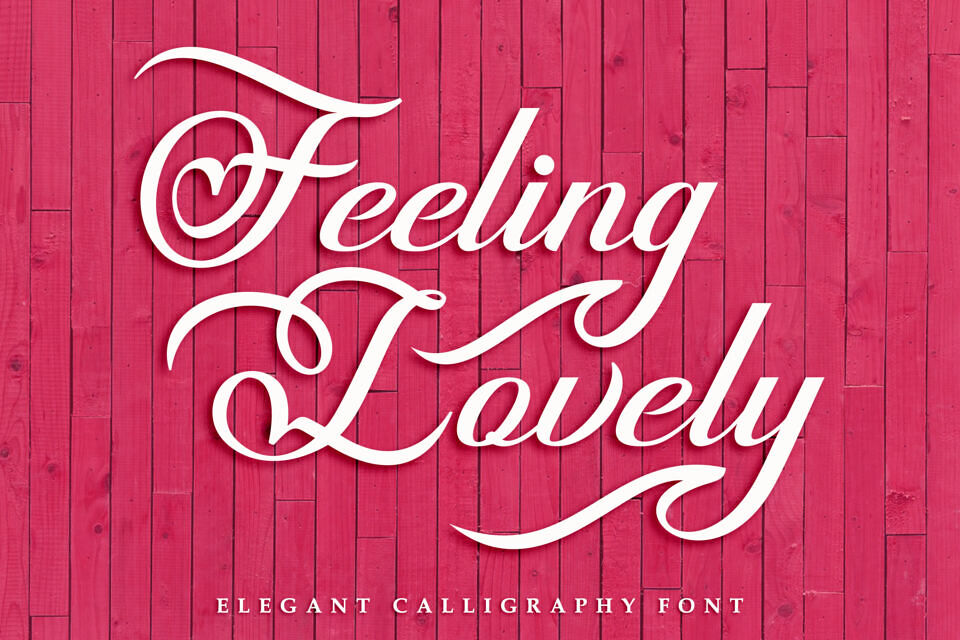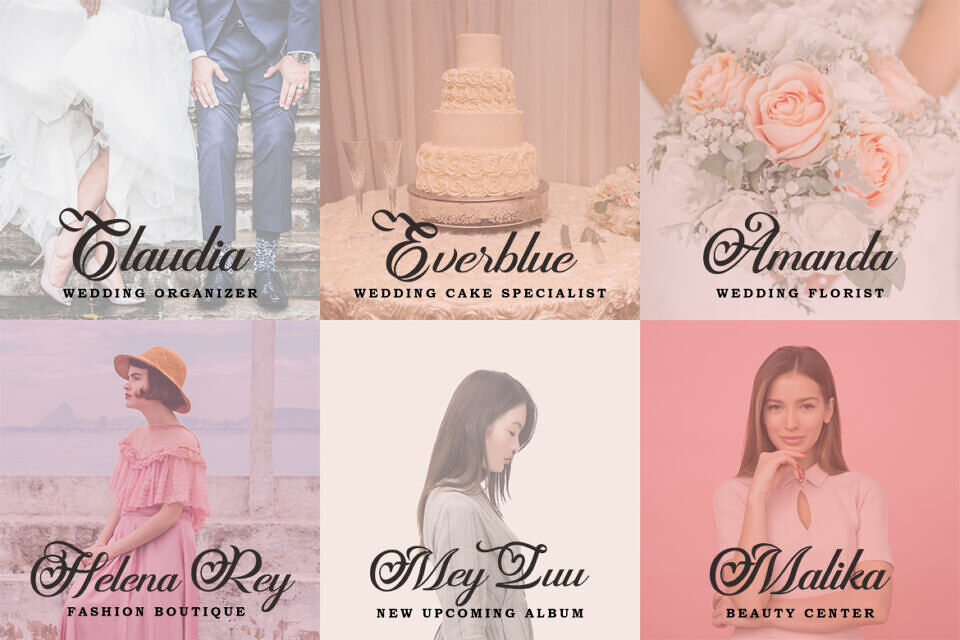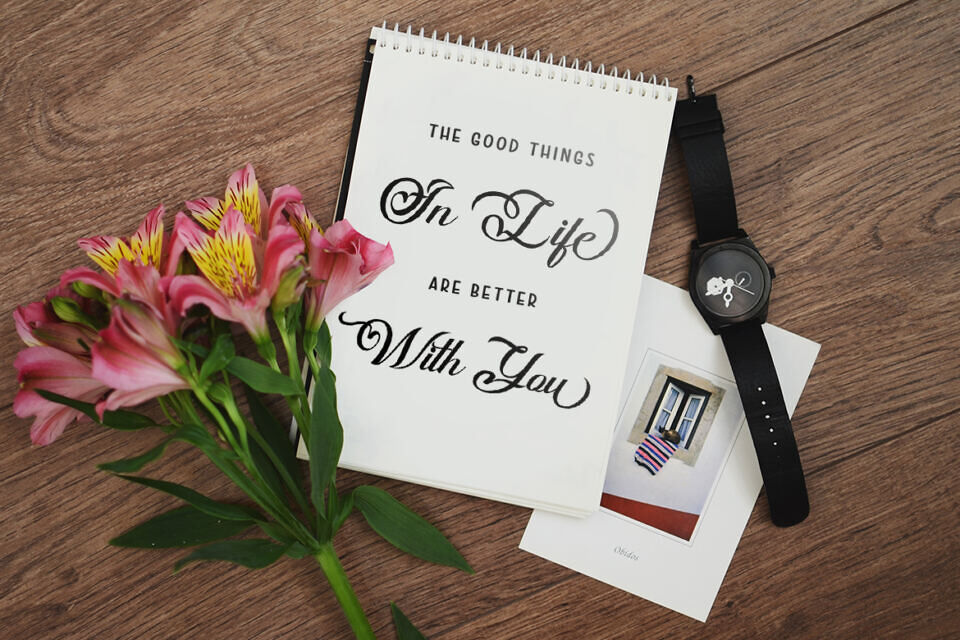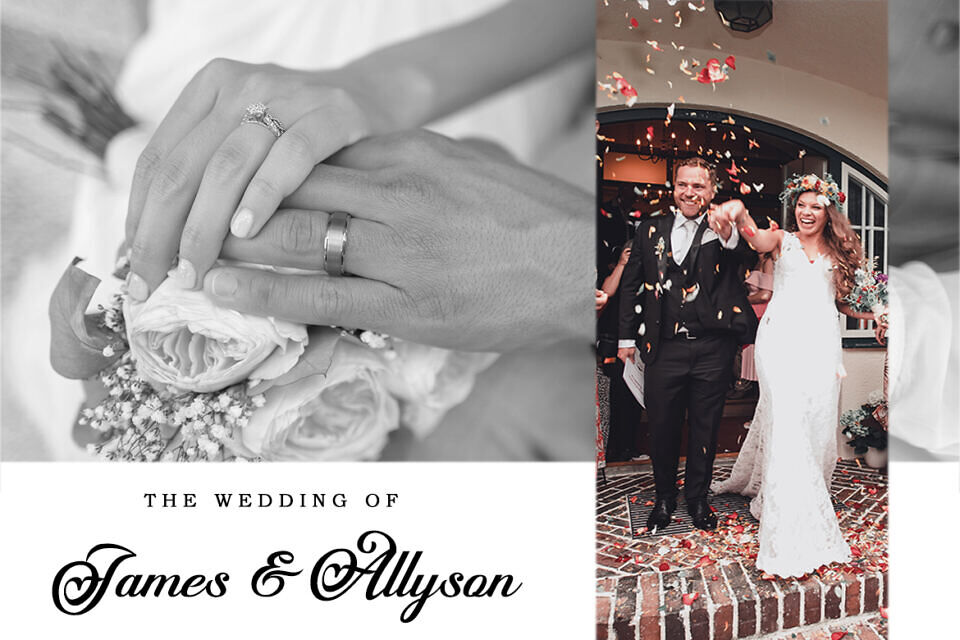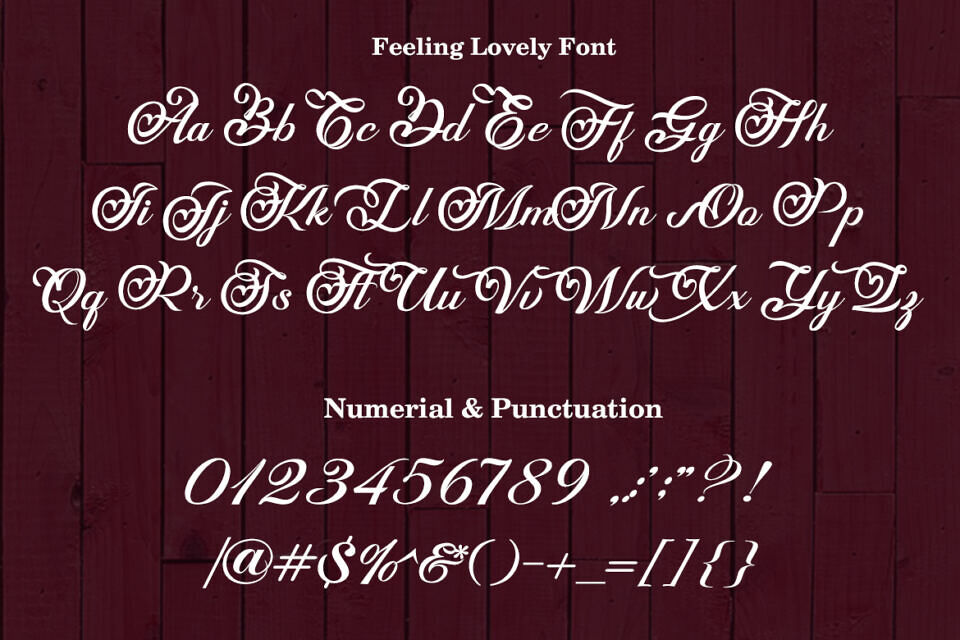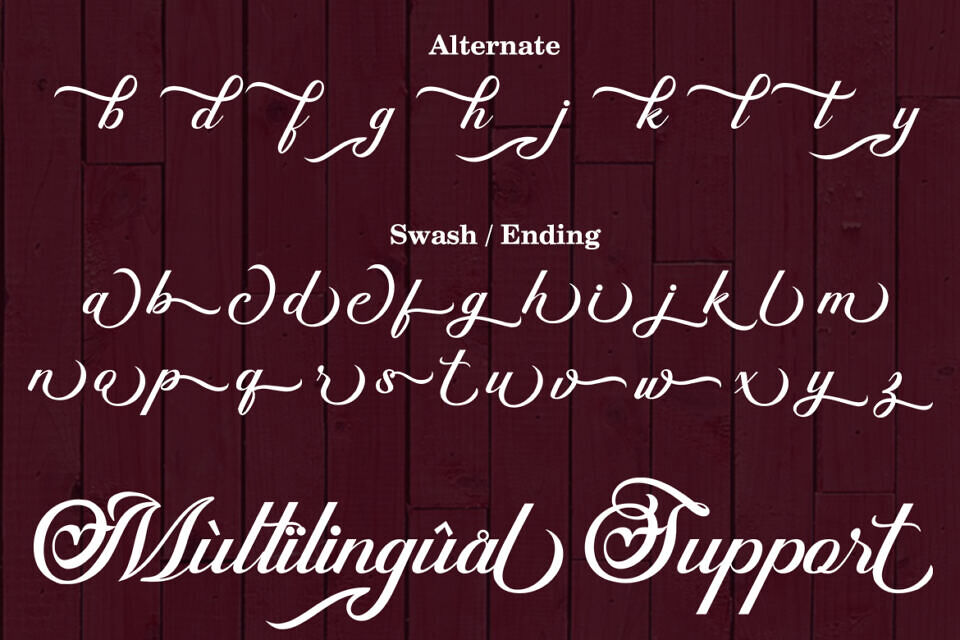
Feeling Lovely Font
The Feeling Lovely is an elegant calligraphy font. It features a varying baseline, has a modern feel, and looks stunning. It can be used for various purposes such as headings, weddings, invitations, signatures, logos, branding, t-shirts, letterheads, and much more!